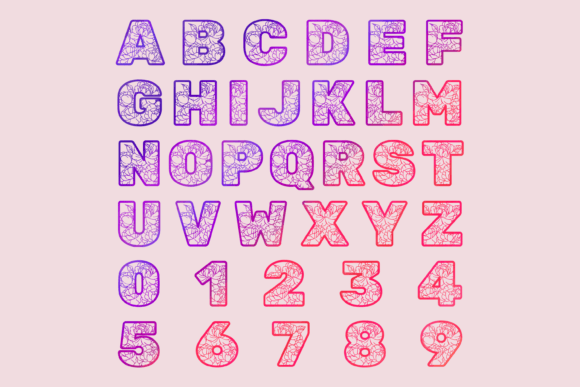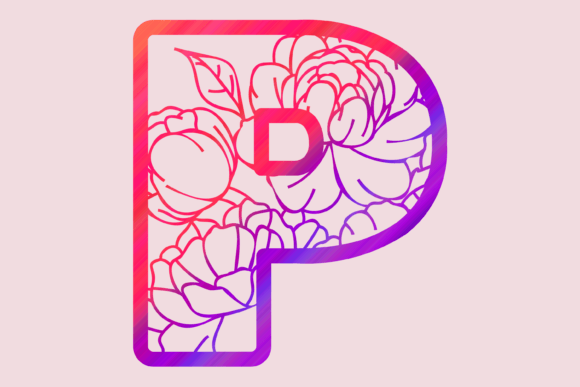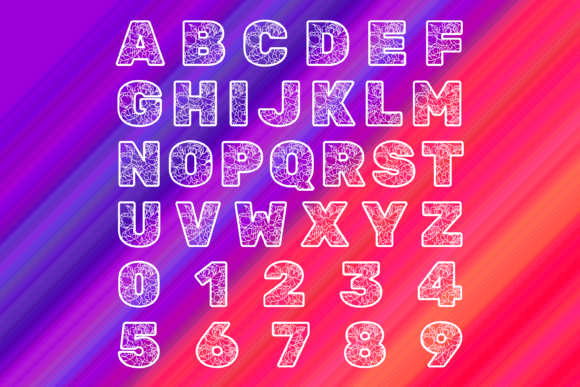
Introduction to Peony Lace Font
Peony Lace is an elegant botanical lace font.
This font is ideal for adding special decoration to your crafts Whether you use it for custom designs, DIY crafts, or just any creation that requires a lovely touch, this font will be an amazing choice.
Key Features of Peony Lace Font
Why Choose Peony Lace Font?
Peony Lace Font offers exceptional quality and versatility, making it a valuable addition to your design toolkit. Whether you’re creating for personal projects or commercial use, Peony Lace Font delivers professional results.